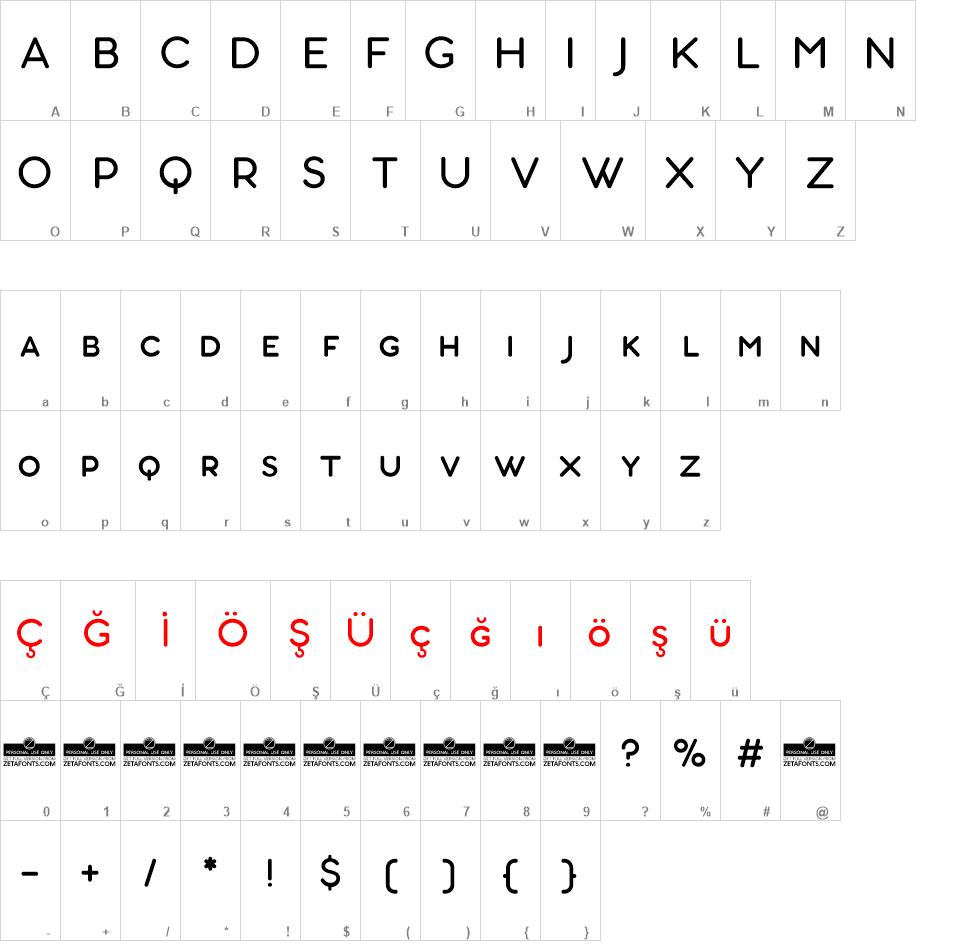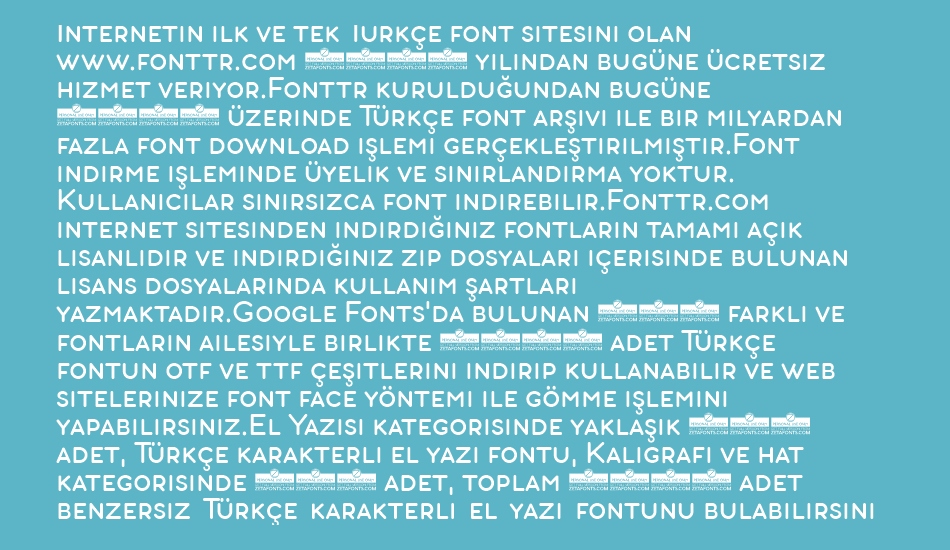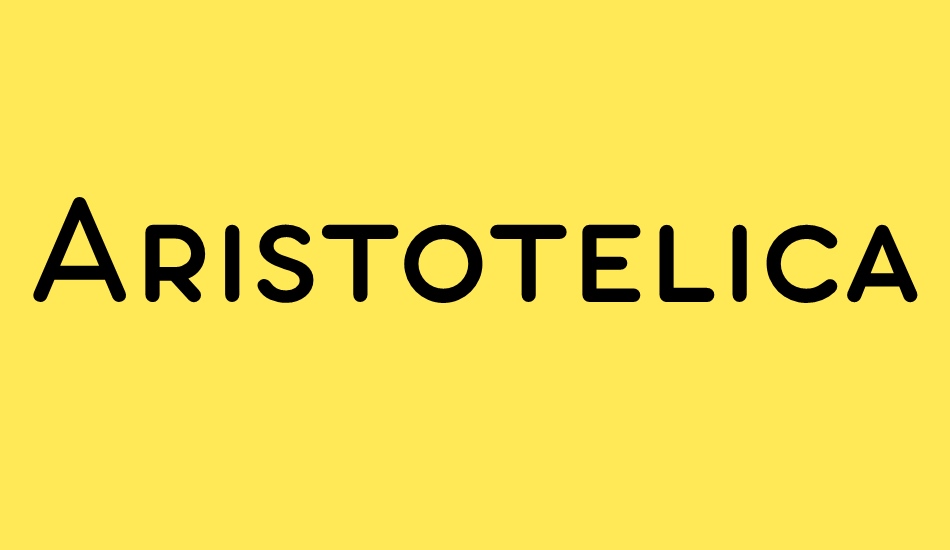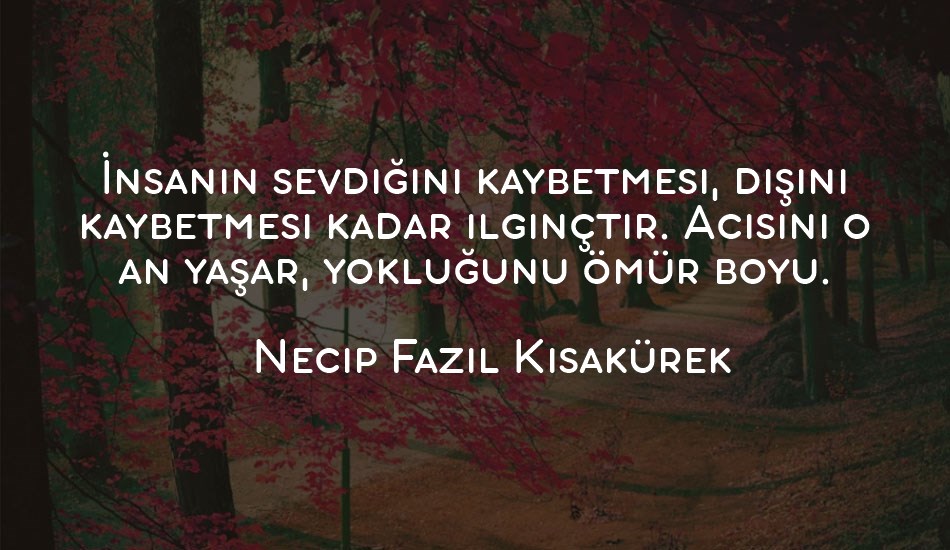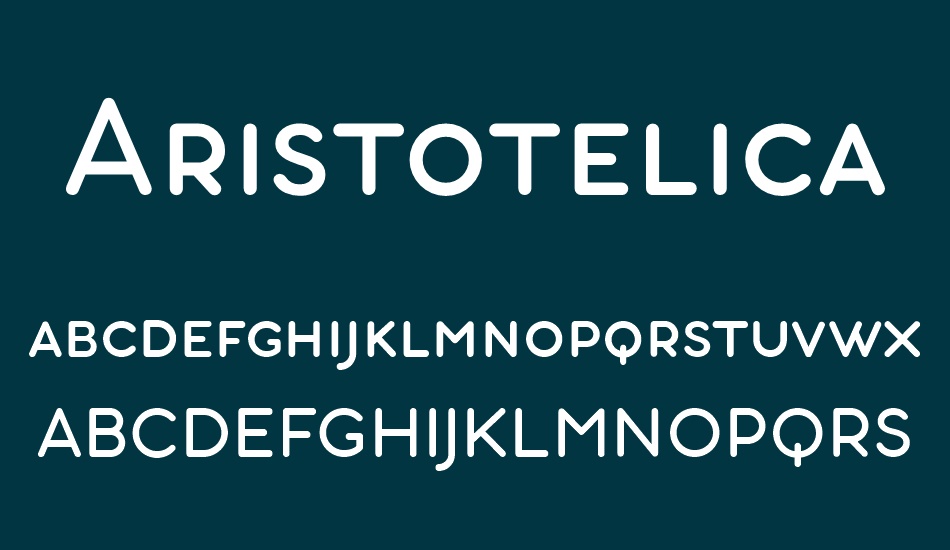
Aristotelica font
Aristotelica
Conceived as an exercise in restraint and simplicity, Aristotelica is typographic eulogy to the simple beauty of circular shapes. It shows its strengths mostly in display uses and logo design, with a palette of moods ranging from the stark elegance of the uppercase hairline weights to the playful softness of the lowercase bold weights.
All Aristotelica fonts include Greek and Cyrillic alphabets as well as an extended range of latin characters, covering over forty languages. Open type features includes stylistic alternates, old style and lining figures and small caps.
A text variant, Aristotelica Text has been developed for seven out of the eight display weights, applying slight corrections to design and metrics to allow for better legibility in paragraph text.
The family is further enriched by the inclusion of Aristotelica Icons, a set of matching variable-width monoline icons that can be used to faultlessly match the typeface line width.
Aristotelica Small Caps font